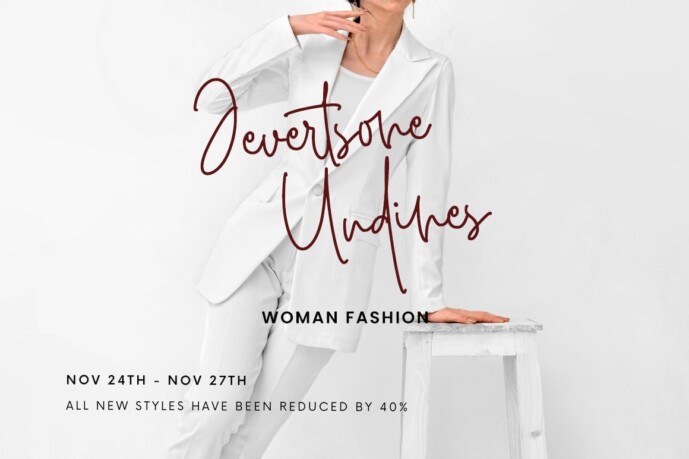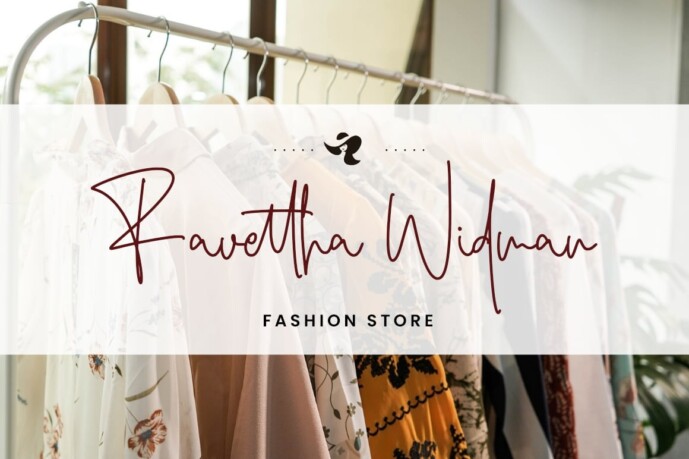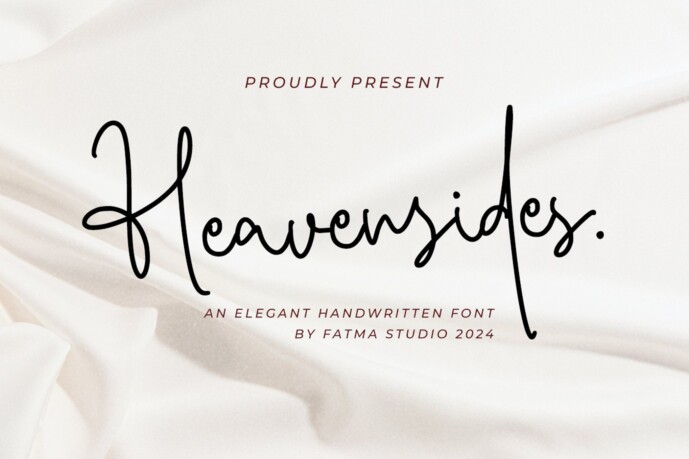
Heavensides Font
Designer: fatmastudio
Heavensides simplifies elegance in a truly exceptional script font. It will elevate a wide range of design projects to the highest level, whether it’s branding, headlines, wedding designs, invitations, signatures, logos, labels and much more!